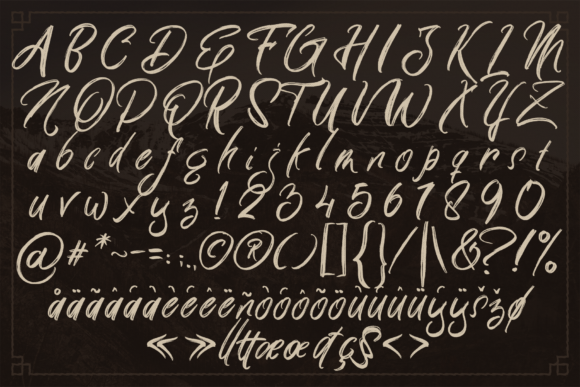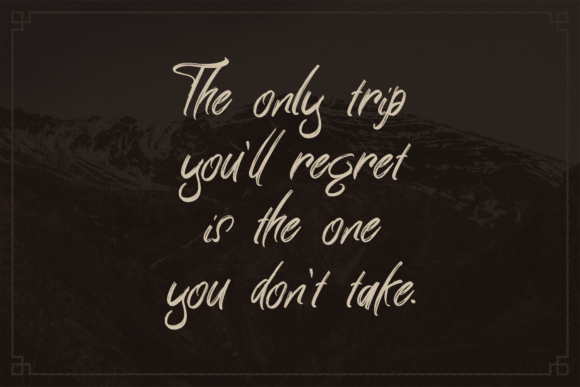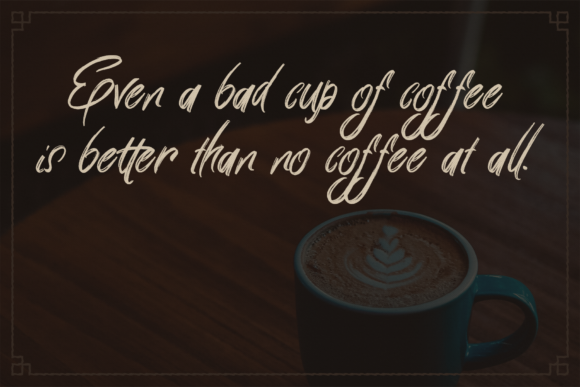
The Perfect Font for Your Creative Vision
Have you ever sat in front of your computer, staring blankly at a blank canvas, searching for the perfect font to bring your design to life? It’s a moment we’ve all been in, and it’s where the magic happens. The spark of creativity ignites, and suddenly, ideas start flowing. For designers, finding the right font can be the difference between a good design and a great one.
Enter the Hustle Bustle Font, a modern and enchanting script font that’s about to become your new best friend. Crafted with a brush pen, this font exudes a clean, quirky charm that’s perfect for logos, branding, social media, and crafty DIY projects. With the Hustle Bustle Font, you’ll be able to infuse your designs with a unique touch that sets them apart from the rest.
Hustle Bustle Font Key Features
- Unique Characteristics: The font features a unique blend of modern and vintage elements, with distinctive letterforms and flourishes that add a touch of sophistication and elegance.
Hustle Bustle Font Review
I recently had the chance to work with the Hustle Bustle font, and I have to say it’s a solid addition to any designer’s toolkit. ✨ One of the things that stands out to me is its versatility. The font is available in both sans-serif and script styles, making it easy to find a look that fits your project’s tone.
Another great aspect of Hustle Bustle is its customization options. The font is fully editable, allowing you to adjust the weights, sizes, and even the spacing between letters. This level of control is a game-changer for designers who want to create unique and eye-catching typography.
Here are some of the key features that make Hustle Bustle stand out:
- Available in both sans-serif and script styles
- Fully editable for customization
- Highly legible and readable
- Works well for both digital and print projects
However, I do have a few criticisms. ⚠️ The font can be a bit too playful at times, which may not be suitable for all projects. Additionally, some of the script styles can be a bit too ornate, making them difficult to read in certain contexts.
Overall, I think Hustle Bustle is a great choice for designers who want a fun and versatile font that can add some personality to their projects. With a little bit of creativity and restraint, I think this font has the potential to be a real showstopper.
Hustle Bustle Font Practical Application Guide
The Hustle Bustle font is perfect for creating energetic and playful designs. Use it for:
– Social media graphics and ads
– Event invitations and posters
– Marketing materials and flyers
– Branding and logo design
– Any project that needs a fun and dynamic font.